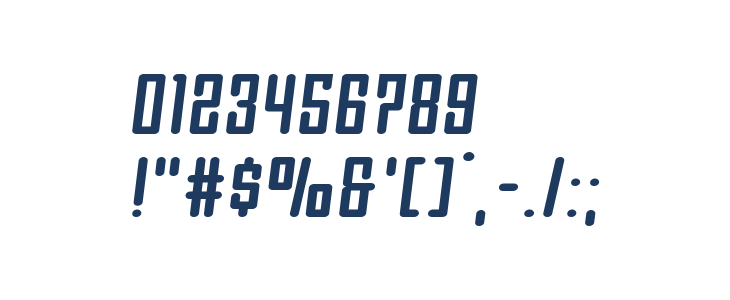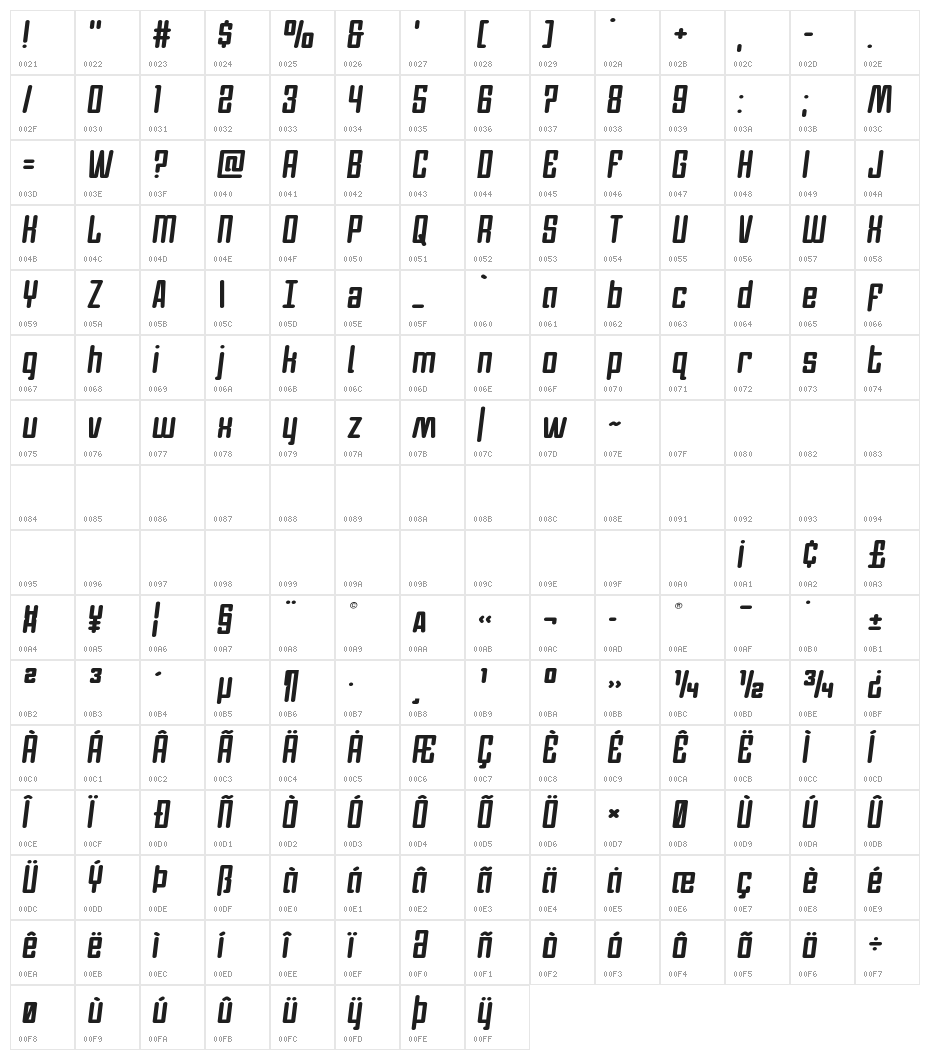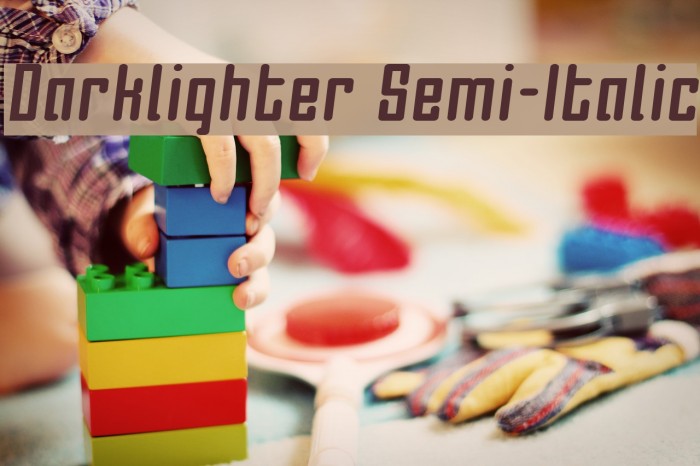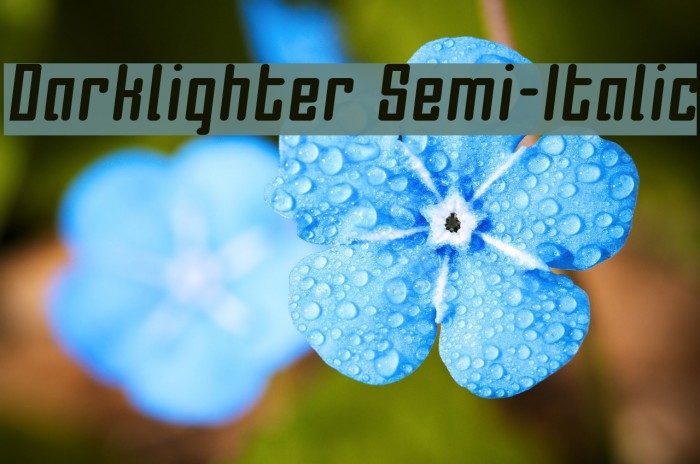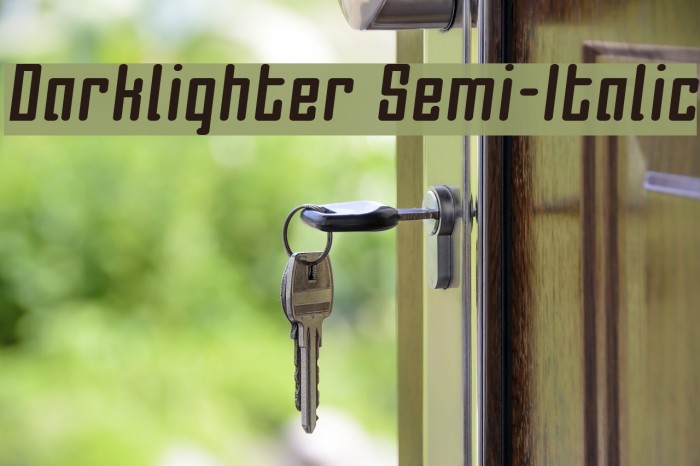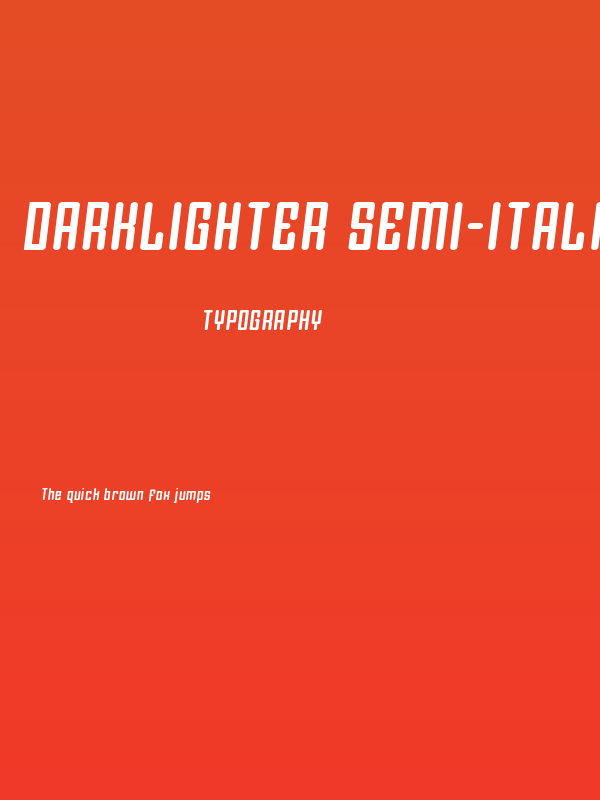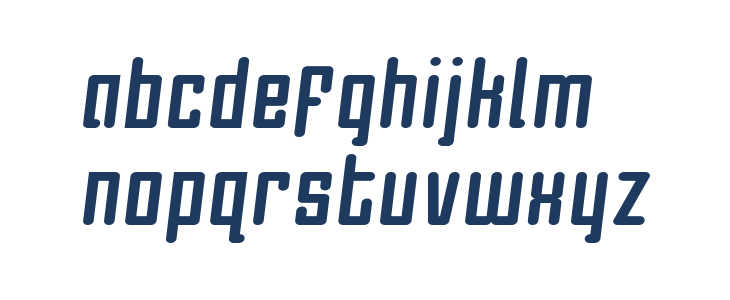
Darklighter Semi-Italic Font
Darklighter Semi-Italic Description
This font features a modern and dynamic style with a semi-italic slant, giving it a sense of motion and energy. The characters are bold and slightly condensed, with a consistent stroke width that provides a uniform appearance. The uppercase letters are tall and narrow, while the lowercase letters maintain a similar width, creating a cohesive look. The numerals are clear and distinct, matching the overall style of the alphabet. Special characters are well-integrated, maintaining the font's sleek and contemporary aesthetic. This font is versatile, suitable for various design applications where a modern and energetic feel is desired.